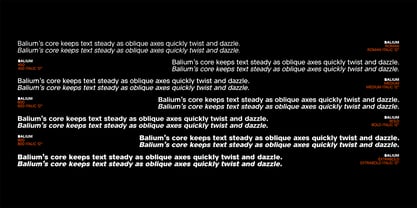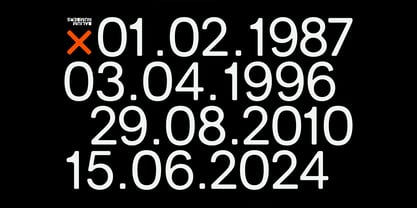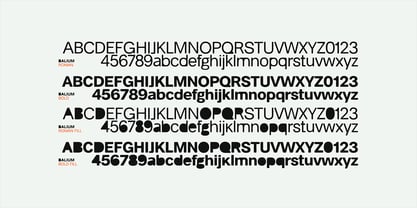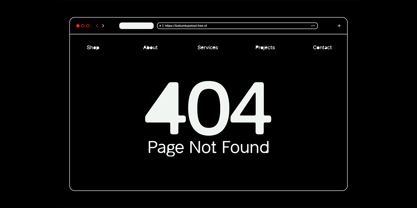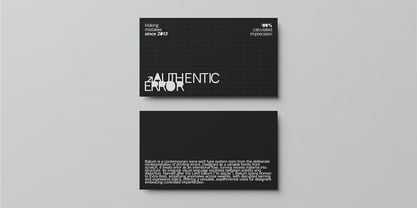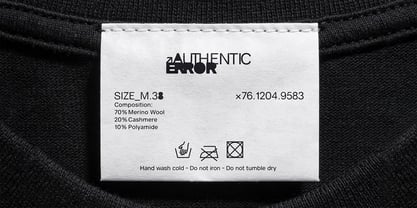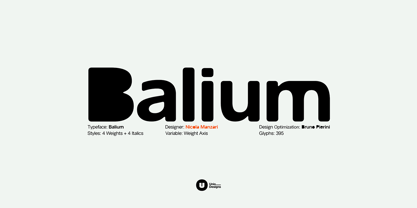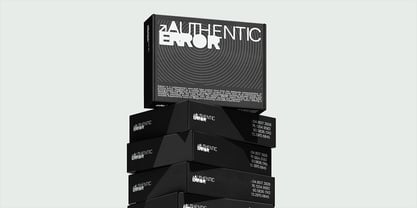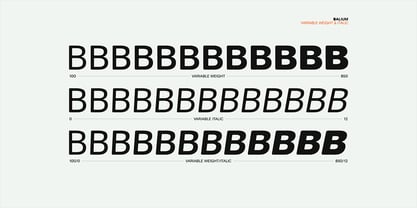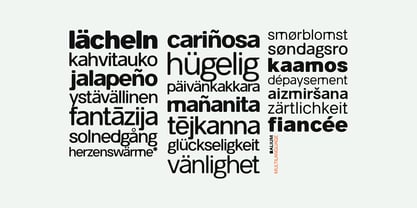
The Balium Font Family was designed by Nicola Manzari, Bruno Pierini and published by Unio Creative Solutions. Balium contains 36 styles and family package options. More about this family
Balium is a contemporary sans-serif type system born from the deliberate reinterpretation of printing errors and the traditional strategies used to conceal them. Conceived as a variable family and designed entirely from scratch, Balium treats error as an intentional latent flaw: all areas that would conventionally require stroke thinning are instead saturated with black. This choice produces a recurring, irregular visual language that oscillates between solidity and distortion, introducing expressive noise into a visual culture increasingly shaped by algorithmic precision and AI. The name Balium derives from the Latin balium, associated with the act of “abbagliare”—to dazzle, to overwhelm with glare or brightness. This notion of glare and visual excess directly informs the typeface’s constructive approach: forms are not refined by subtraction, but built through accumulation, where excess material becomes structure and error turns into a generative principle. The family spans from Roman to Extra Bold through a continuous, proportionally stable interpolation between two primary masters. Along the weight axis, Balium progressively intensifies its anomalies, exploring imperfection through normal and filled styles, deliberately disrupted kerning, and a consistent pairing with its italic counterpart. Each style preserves overall rhythm while amplifying error within the typographic system. Balium is conceived as a versatile yet explicitly experimental voice, capable of shifting from headline to interface without losing its character. It is a typeface designed for brands and designers who embrace controlled imperfection, operating at the intersection of contemporary typography, technology, and visual experimentation. Typeface Specifications: - Included: Core, Filled, Bad Kerning, Bad Kerning Filled styles - Weights: Roman, Medium, Bold, Extra Bold including matching oblique - Global Support: Includes 447 glyphs for a broad range of languages. ---------------------------------
Balium